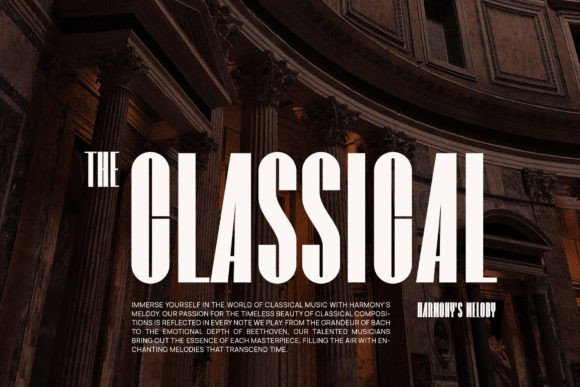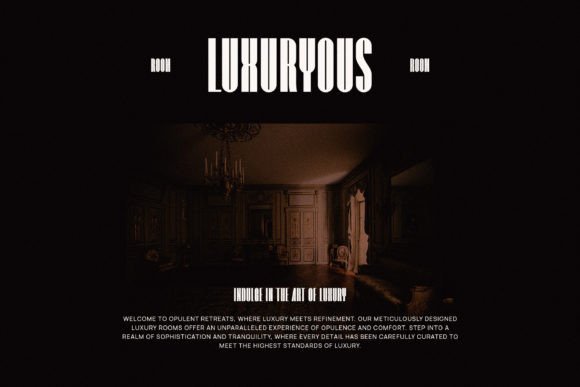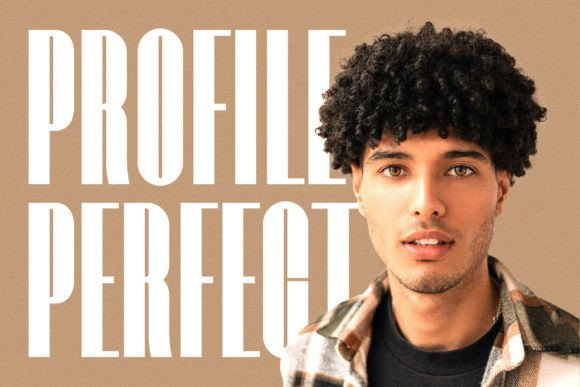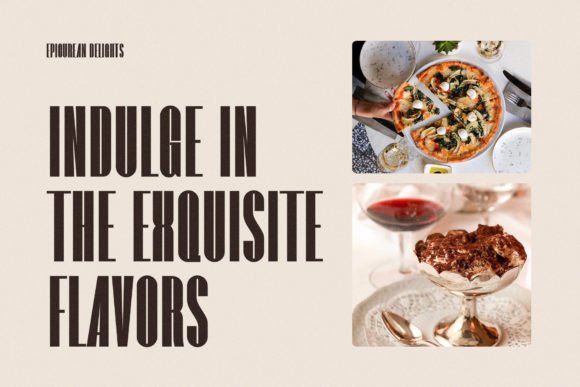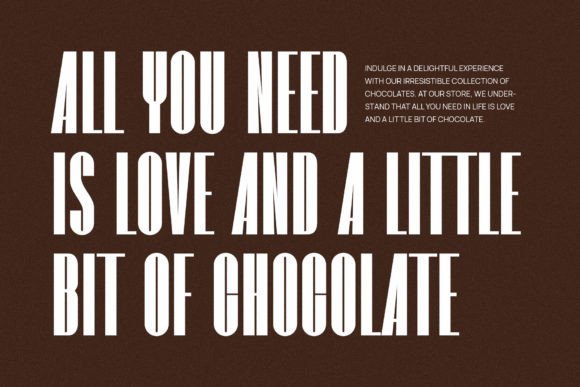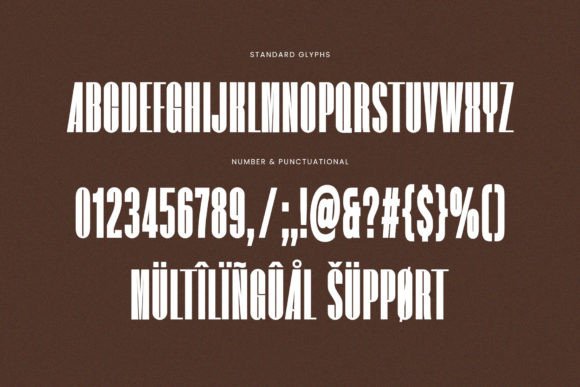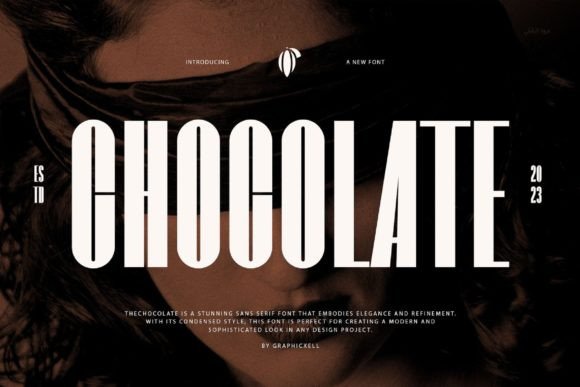
The Sweetest Addition to Your Design Arsenal: Chocolate Font
Are you a designer or crafter looking for the perfect font to add a touch of elegance and sophistication to your projects? Look no further than Chocolate Font! This versatile and highly readable font is perfect for a wide range of applications, from branding and logos to wedding designs, social media posts, and more.
What Makes Chocolate Font So Special?
Chocolate Font is designed with a high level of readability, making it perfect for use in various projects such as branding projects, logos, wedding designs, social media posts, advertisements, product packaging, product designs, labels, photography, watermarks, invitations, stationery, and any other project where you want to make a lasting impression.
PUA Encoding for Easy Access to Glyphs and Ligatures
One of the standout features of Chocolate Font is that it is PUA (Private Use Area) encoded. This means that you can access all of the amazing glyphs and ligatures with ease, giving you even more creative freedom to produce stunning designs. With PUA encoding, you can easily access and use the font’s built-in swashes, stylistic alternates, and other features to add a personal touch to your projects.
Chocolate Font is incredibly versatile, making it perfect for a wide range of design applications. Here are just a few ideas to get you started:
- Branding and Logos: Use Chocolate Font to create a memorable and sophisticated brand identity that will leave a lasting impression on your customers.
- Wedding Designs: Add a touch of elegance and romance to your wedding designs, including invitations, stationery, and decorations.
- Social Media Posts: Stand out on social media with eye-catching graphics and typography that showcases your brand’s personality.
- Advertisements: Use Chocolate Font to create attention-grabbing ads that drive results and leave a lasting impression on your target audience.
- Product Packaging: Add a touch of luxury and sophistication to your product packaging with Chocolate Font.
- Product Designs: Use Chocolate Font to create stunning product designs that showcase your brand’s style and personality.
- Labels and Photography: Add a professional touch to your labels and photography with Chocolate Font.
- Watermarks: Use Chocolate Font to create elegant and sophisticated watermarks that protect your work.
- Invitations and Stationery: Create beautiful and elegant invitations and stationery that showcase your personal style.
Why Choose Chocolate Font?
With so many fonts on the market, why choose Chocolate Font? Here are just a few reasons why designers and crafters love this versatile font:
- High Readability: Chocolate Font is designed with readability in mind, making it perfect for use in a wide range of projects.
- PUA Encoding: With PUA encoding, you can access all of the font’s glyphs and ligatures with ease.
- Versatility: Chocolate Font is perfect for a wide range of design applications, from branding and logos to wedding designs and social media posts.
- Elegance and Sophistication: Chocolate Font adds a touch of elegance and sophistication to any project, making it perfect for designers and crafters who want to create stunning designs.
In conclusion, Chocolate Font is a versatile and highly readable font that is perfect for designers and crafters who want to add a touch of elegance and sophistication to their projects. With its PUA encoding and endless design possibilities, Chocolate Font is the perfect addition to your design arsenal. Whether you’re working on a branding project, wedding design, or social media post, Chocolate Font is sure to impress.